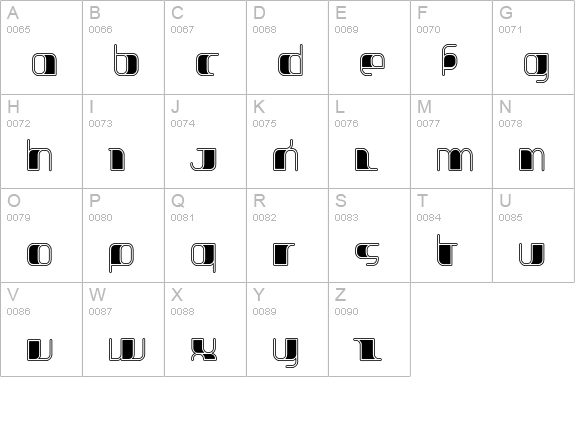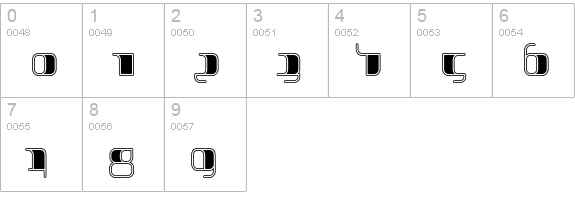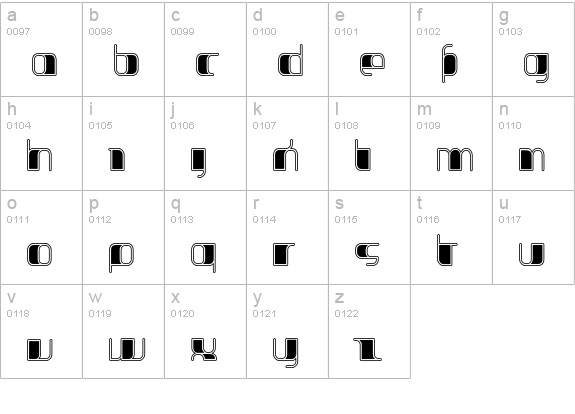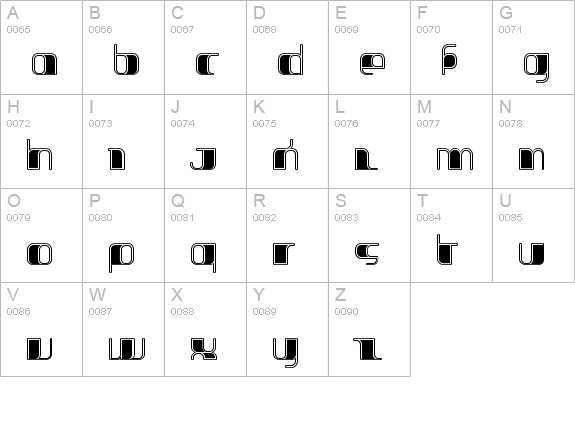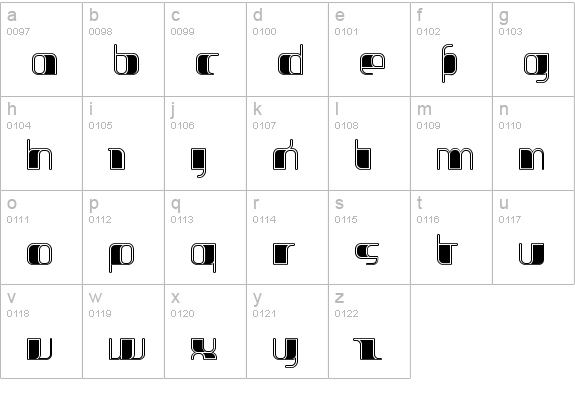
Jakone-Inline is a modern and sleek font that will bring a touch of sophistication to any design project. With its clean lines and stylish curves, this typeface is perfect for creating eye-catching headlines, logos, and branding materials. One of the best things about Jakone-Inline is that it is completely free. You heard that right – this amazing font is freely available to download at FontsMarket.com. Whether you are a professional designer or just someone looking to add a unique flair to your personal projects, Jakone-Inline is the ideal choice. This font is not only visually stunning, but it is also highly versatile. Its inline design adds a sense of depth and dimension to your text, making it stand out on any medium. Whether you are using Jakone-Inline for print materials, websites, or social media graphics, you can be confident that it will make a lasting impression. Jakone-Inline is incredibly easy to read, thanks to its well-crafted letterforms. Each character is carefully designed to ensure legibility, even at smaller sizes. This makes it an excellent choice for body text as well as headlines. The versatility of Jakone-Inline extends beyond its visual appeal and readability. It also supports multiple languages, allowing you to use it in a global context. No matter where your audience is located, this font will enable you to effectively communicate your message. So why wait? Take advantage of this incredible opportunity to download Jakone-Inline for free at FontsMarket.com. Elevate your designs with this stunning font and watch as your projects come to life with style and sophistication.